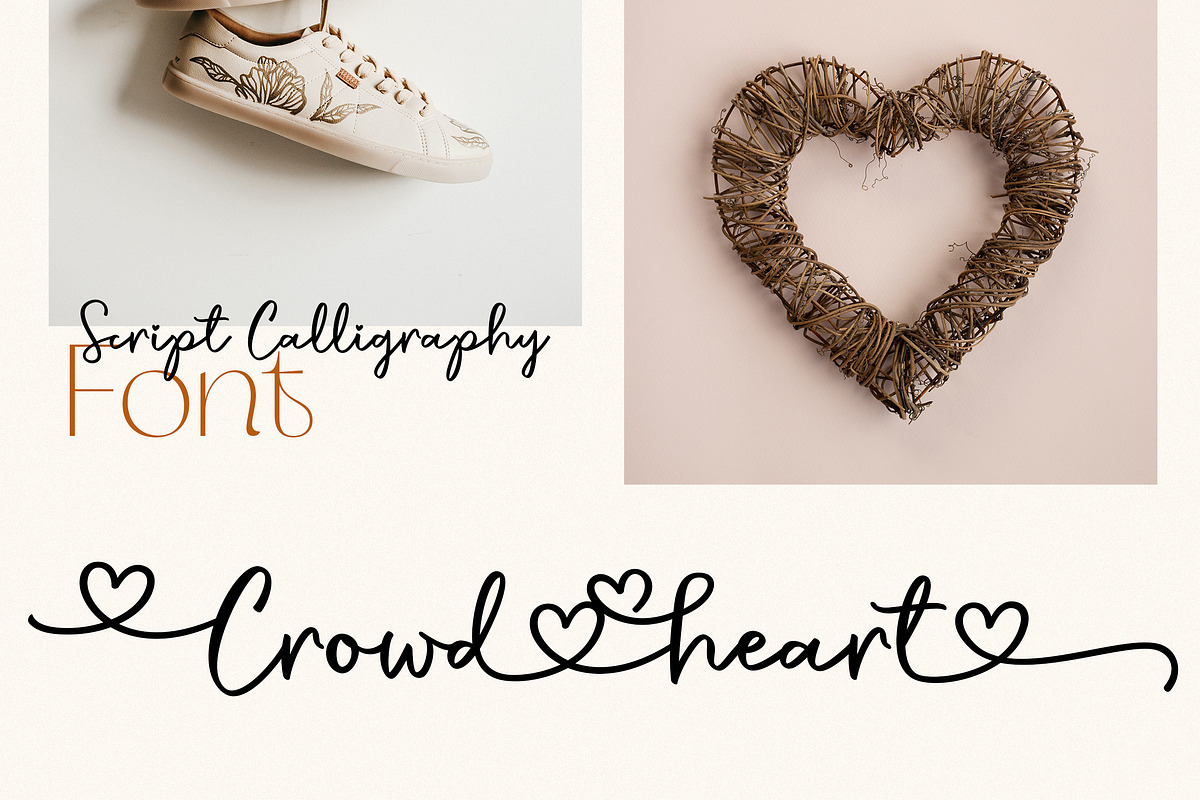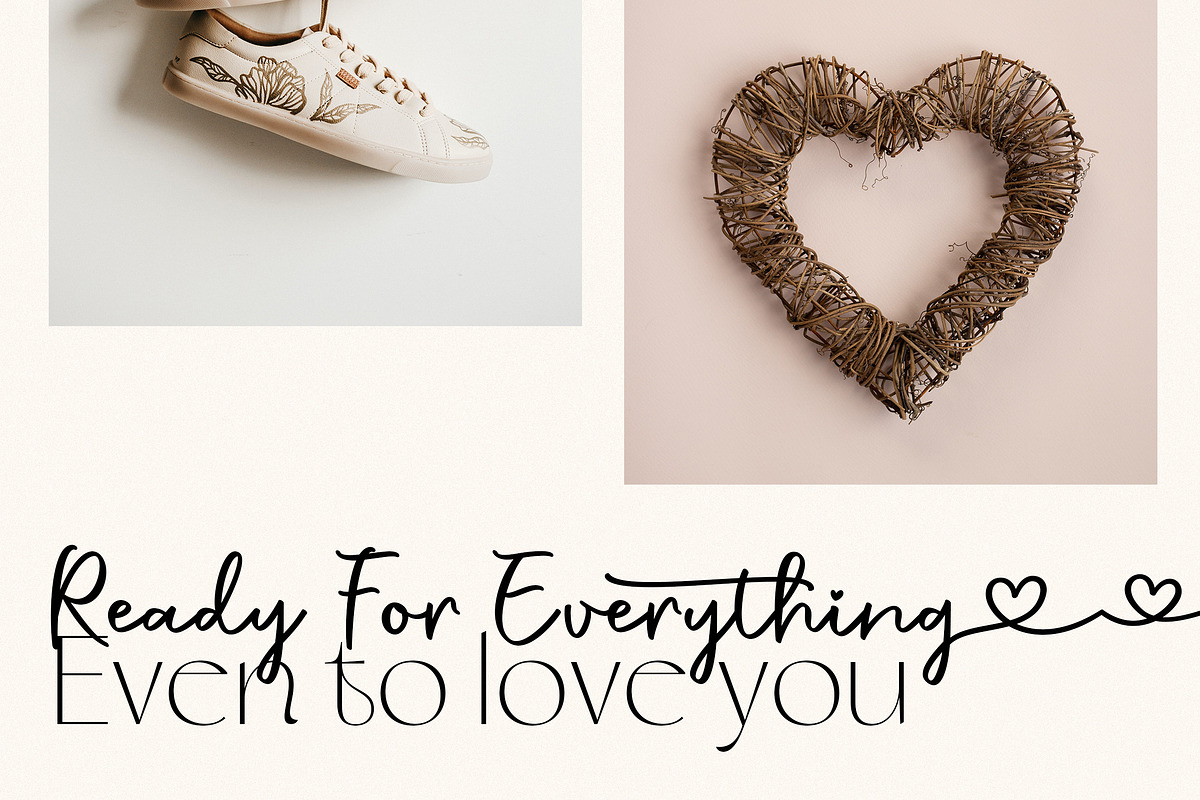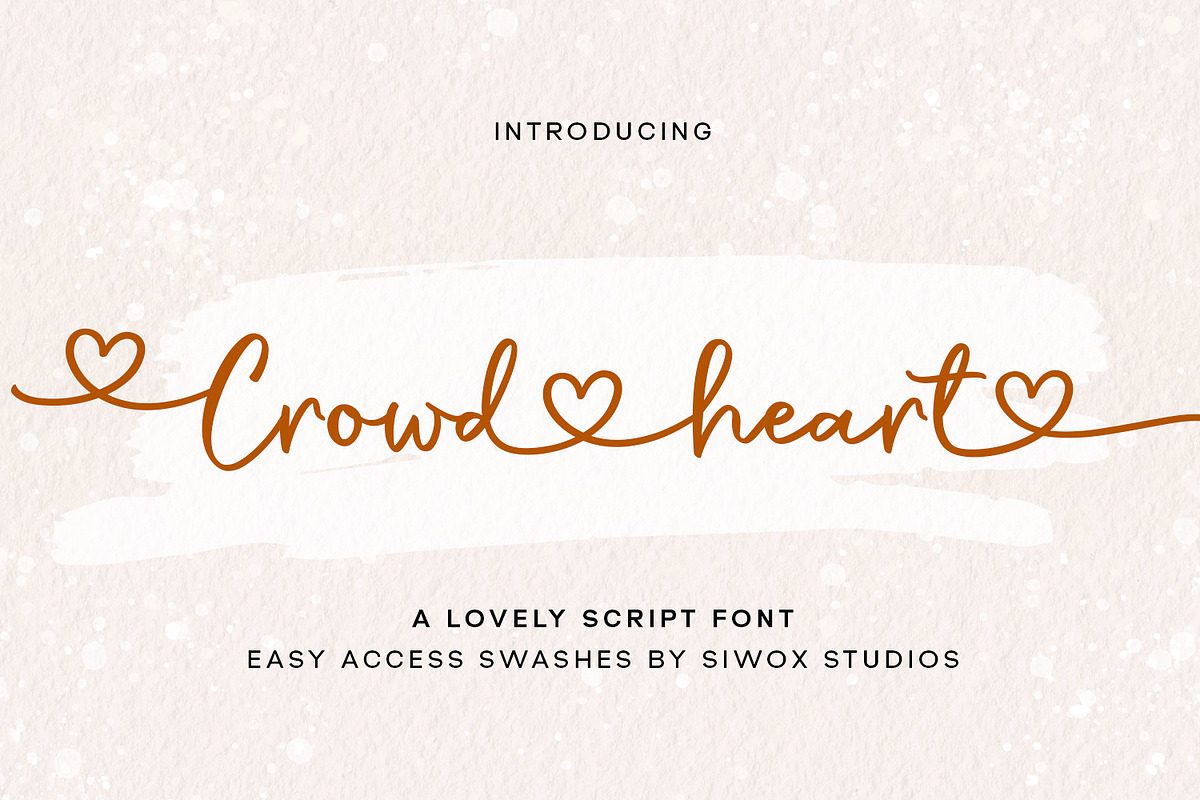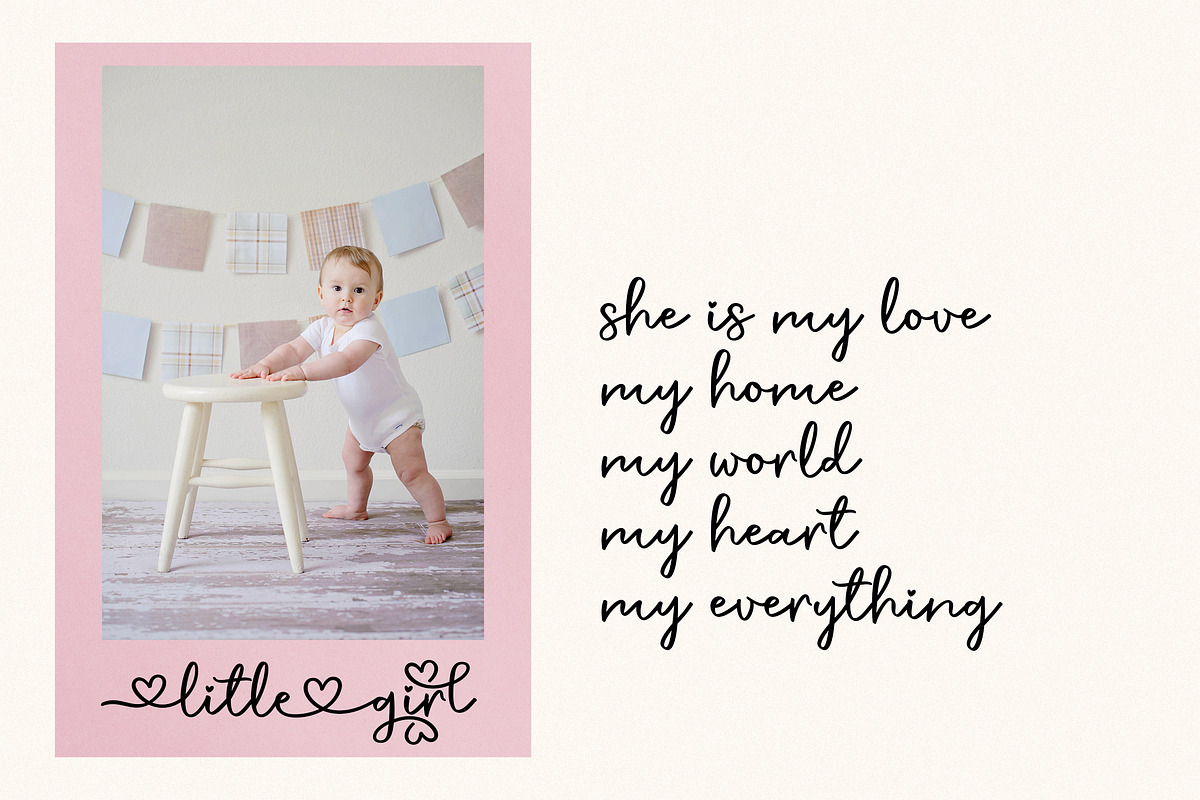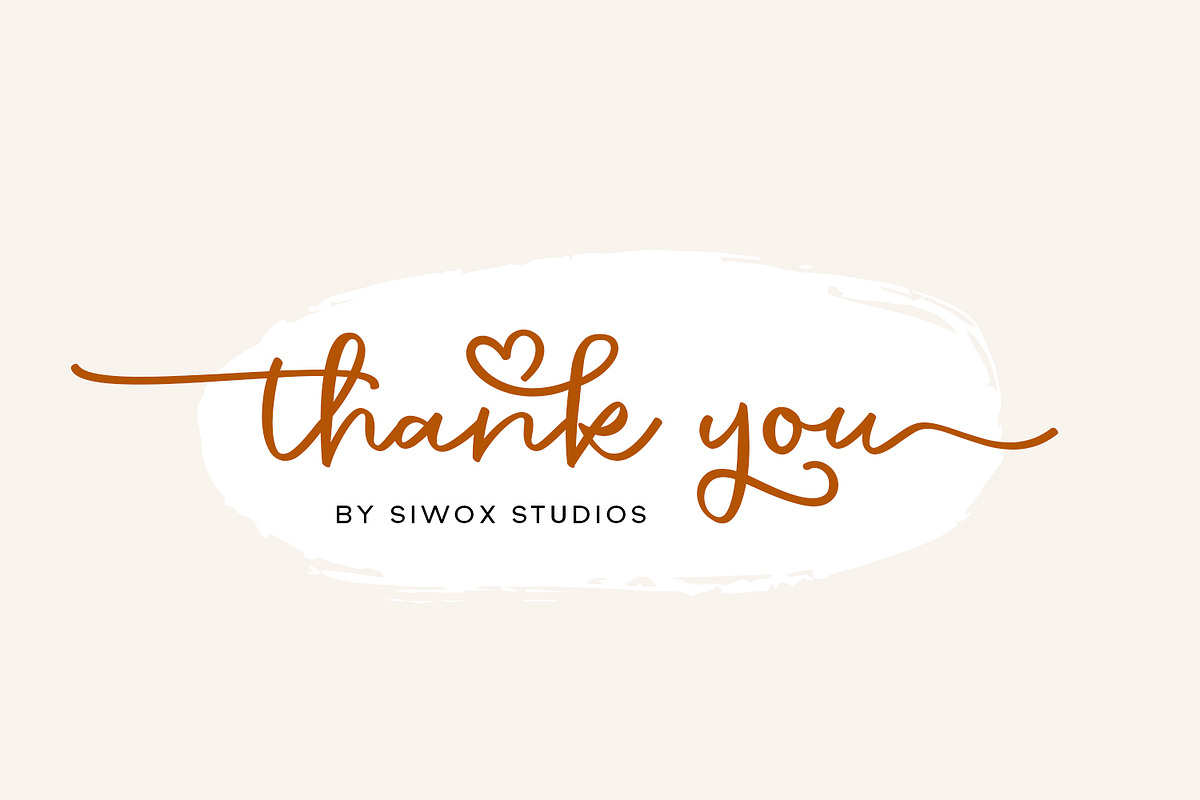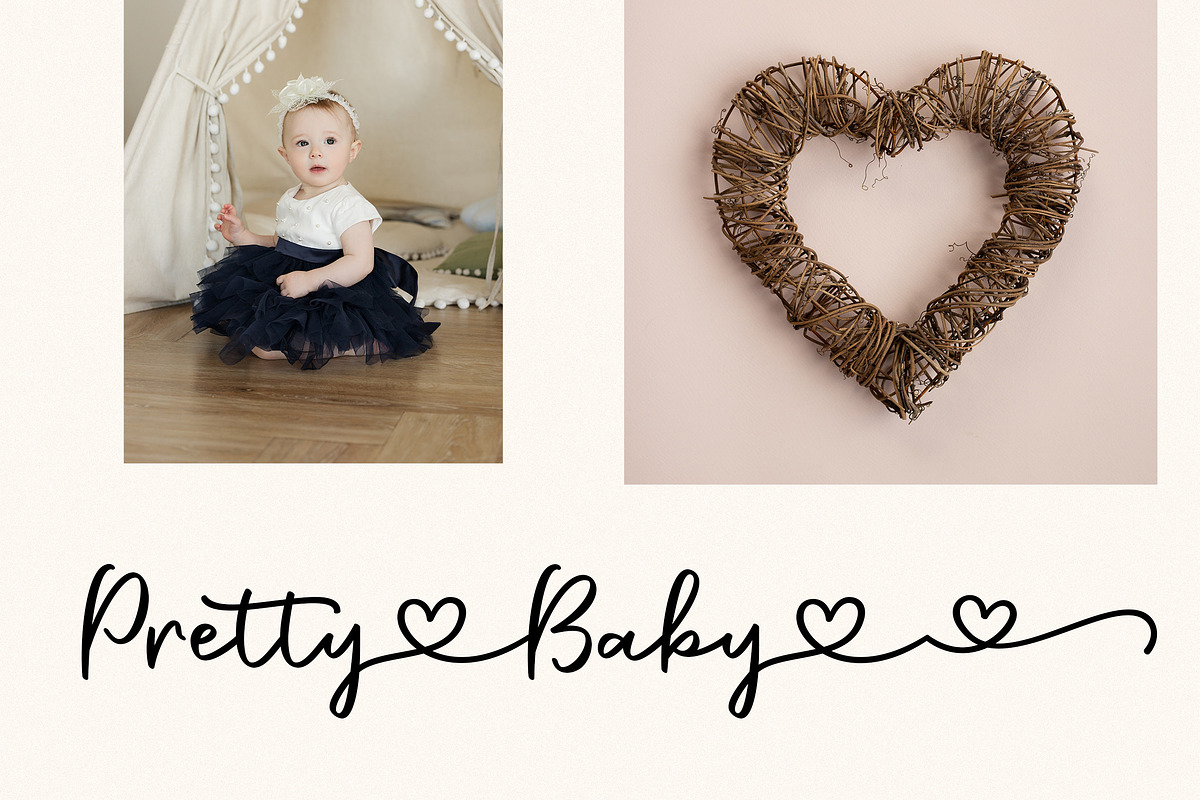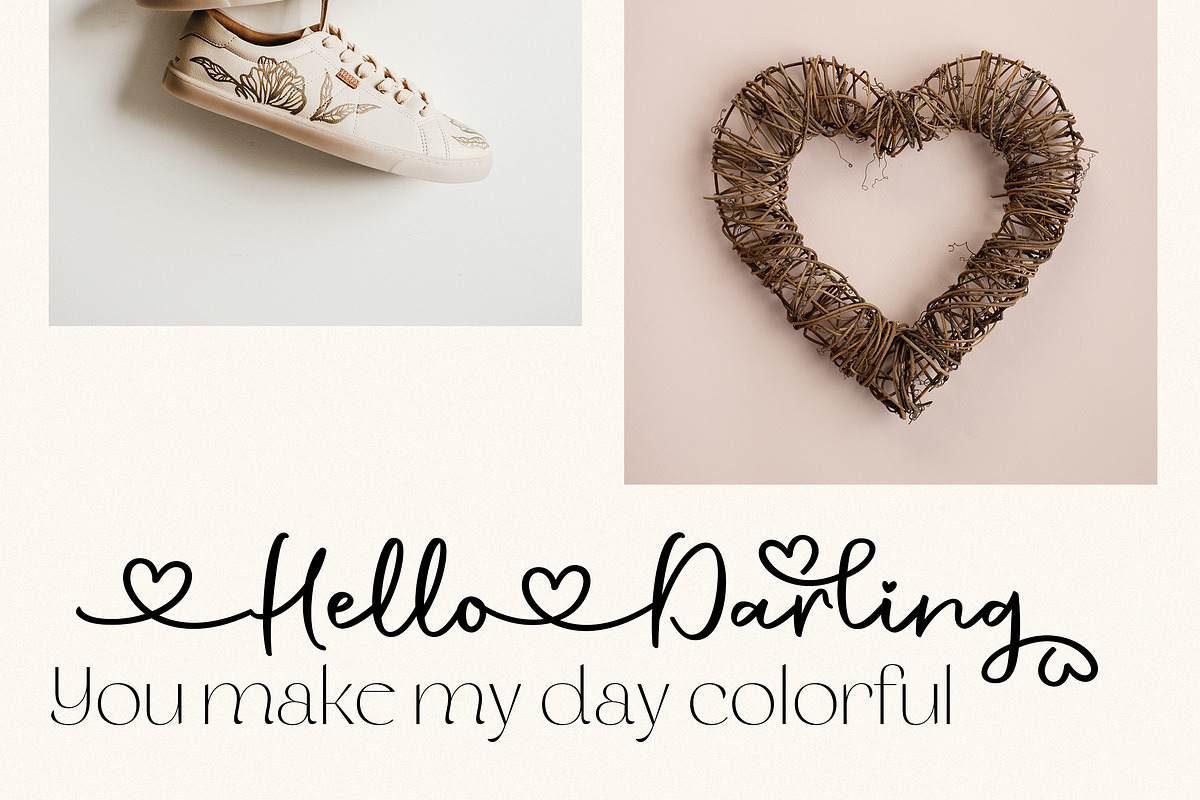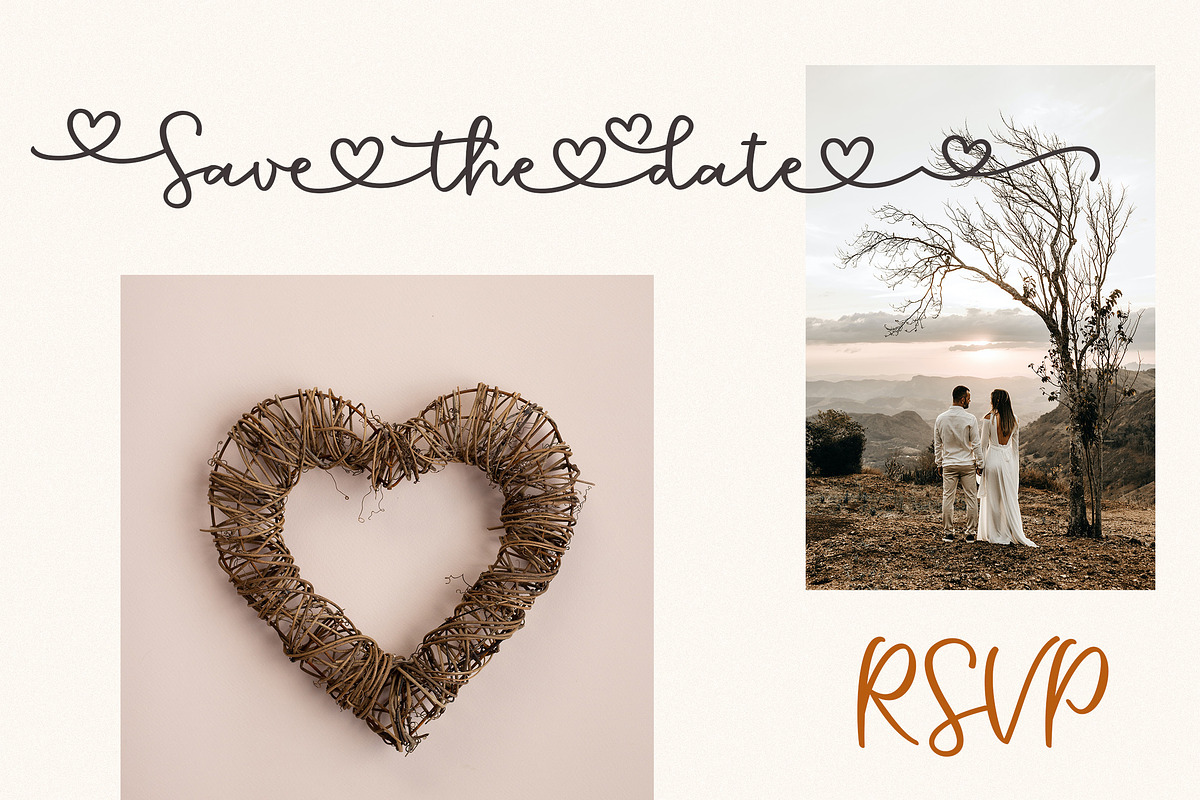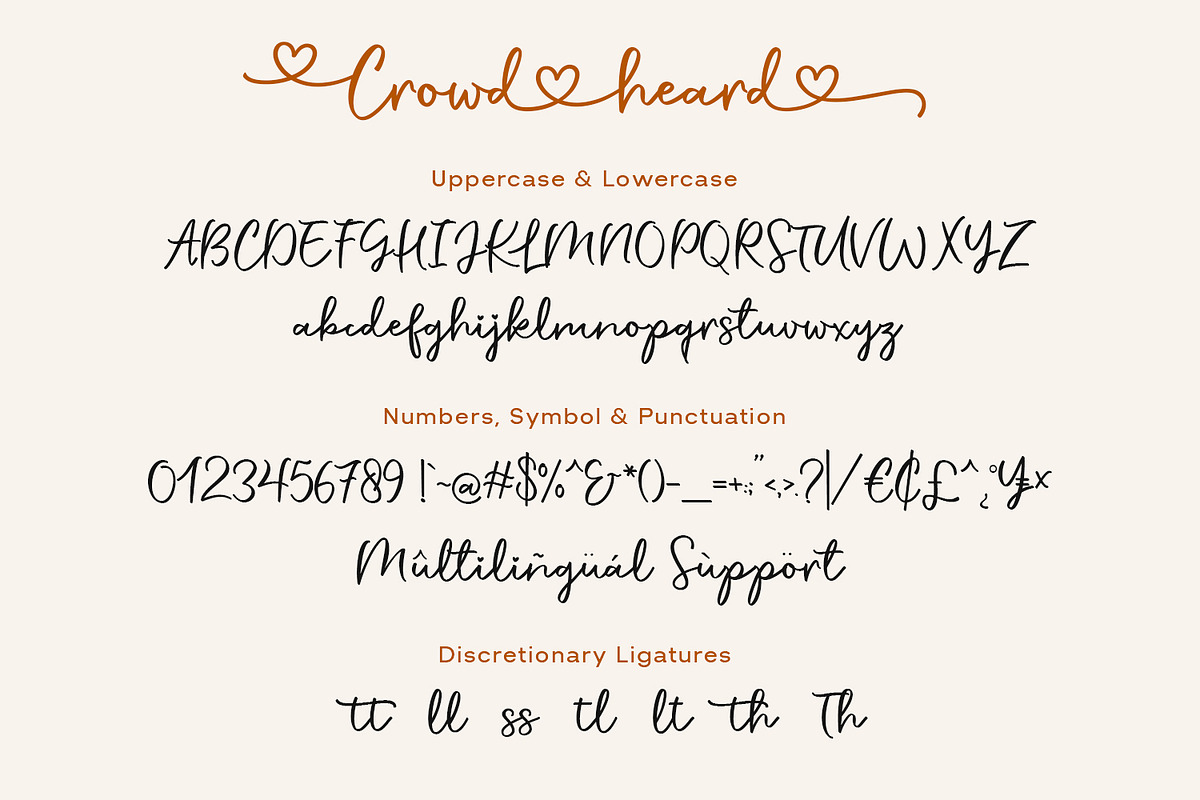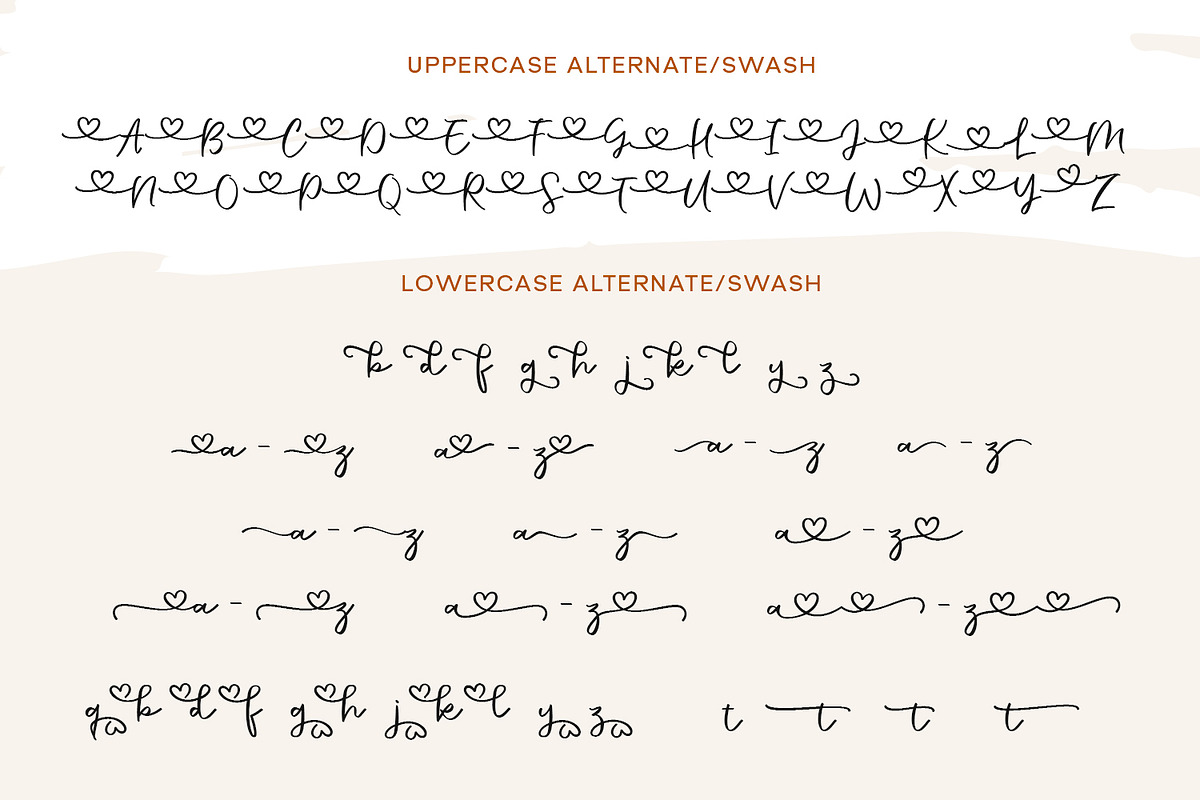
Crowd Heart Script
Crowd Heart Script is a beautiful and light handwritten font with a unique feel and a stunning impact. It will add a luxury spark to any design project that you wish to create! This font is PUA encoded which means you can access all of the amazing glyphs and ligatures with ease!
- Number, Symbol & Punctuation
- Uppercase Alternate/Swash
- Stylistic Alternate
- Stylistic Set
- Connection Heart Swash
- Discretionary Ligatures